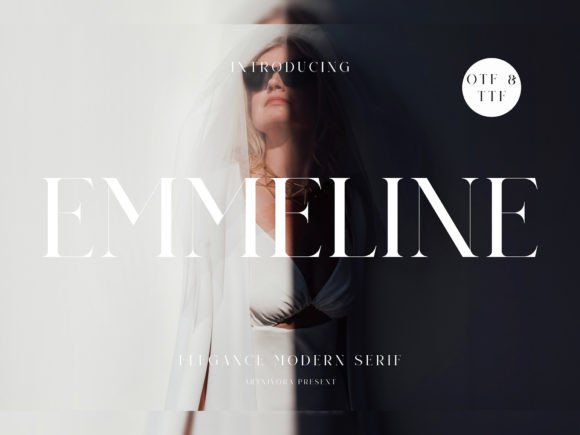
Introducing Emmeline Font, the epitome of elegance and boldness in the world of serif fonts. Created by the talented artnivora.std, this font is more than just a typographic masterpiece - it's a game-changer for anyone looking to make a statement.
Emmeline Font is the perfect choice for all your creative endeavors. Its versatility knows no bounds, making it the best font for memes, modern designs, and everything in between. With its captivating charm, this font will leave a lasting impression on anyone who lays eyes on it.
Imagine the possibilities with Emmeline Font. Want to create stunning wedding invitations that will take everyone's breath away? Look no further. This font adds a touch of sophistication and elegance to any invitation, making it truly unforgettable.
But that's not all. Emmeline Font is also perfect for those artistic souls who love to express themselves through stationary art. Whether you're designing a greeting card or a personalized gift, this font will elevate your creations and make them stand out from the crowd.
Social media enthusiasts, rejoice! Emmeline Font is here to help you create eye-catching posts that will make your followers stop scrolling and pay attention. Its modern and trendy style will give your content a fresh and unique look, setting you apart from the rest.
Get ready to fall head over heels for Emmeline Font. Its bold, yet graceful presence will bring a touch of magic to your designs, making them truly unforgettable. Don't settle for ordinary fonts when you can have the best font for memes, modern designs, and so much more.